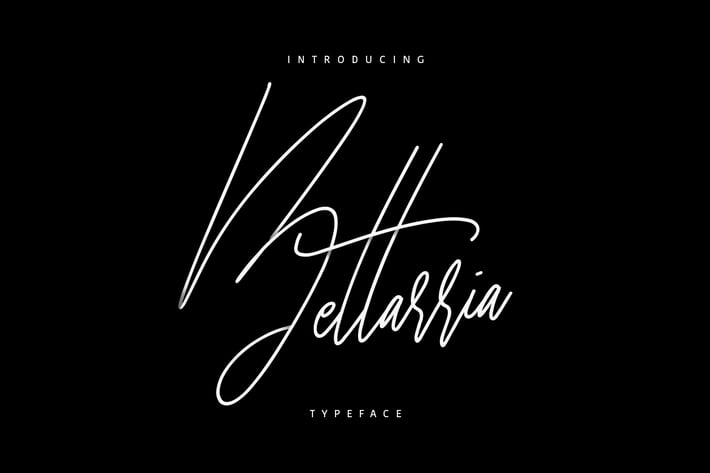
Bettarria Signature Typeface
Give your designs an authentic handcrafted feel. “Bettarria Signature” is perfectly suited to stationery, logos and much more.